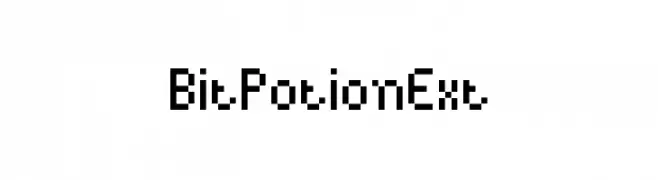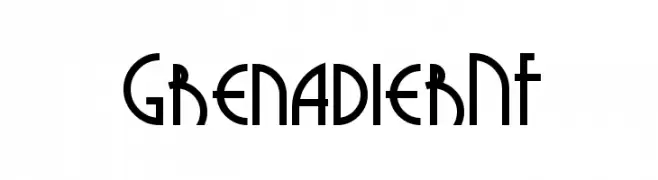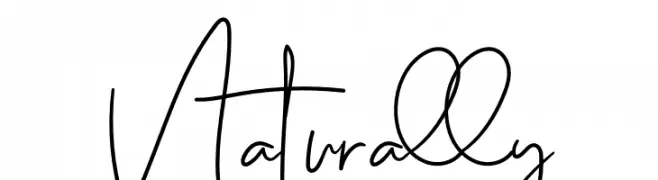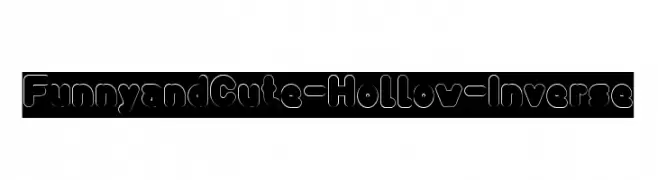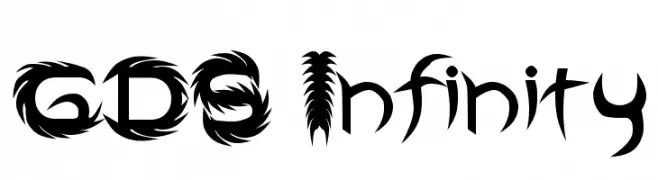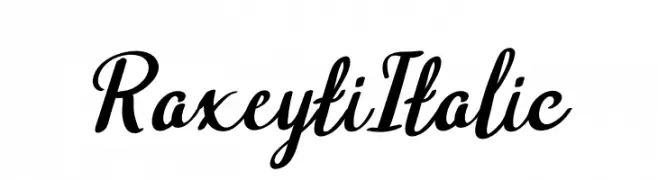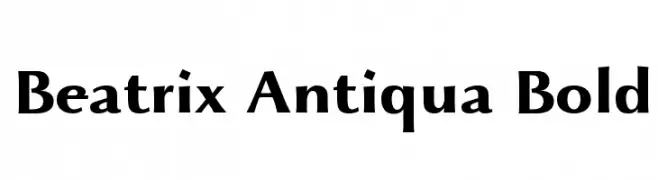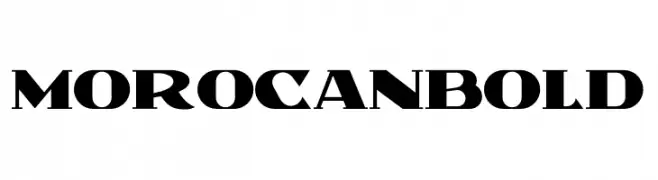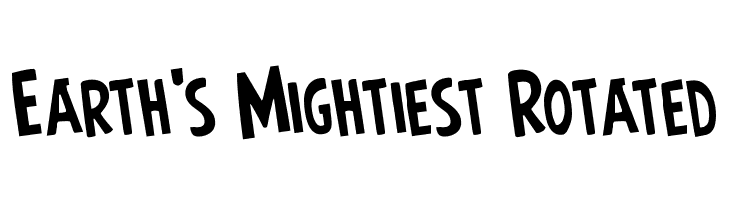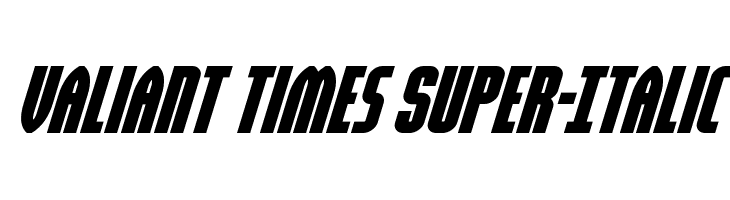
A pixelated, retro-style font inspired by classic 8-bit video games.
A bold, decorative font with geometric precision and filled patterns.
A geometric, art deco-inspired font with bold lines and angular curves.
A fluid and elegant handwritten script with dynamic strokes.
A playful, hollow, and rounded font with a whimsical style.
A bold, decorative font with sharp, spiky elements and dynamic design.
A flowing, cursive font with elegant, sweeping strokes and a dynamic appearance.
A futuristic, bold, and italic font with smooth, rounded characters and high contrast.
A bold, classic serif font with elegant curves and strong presence.
A bold, geometric font with strong visual impact.